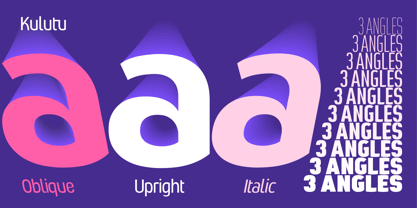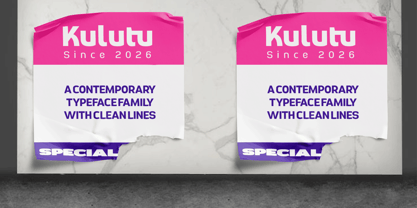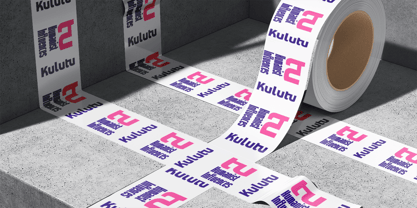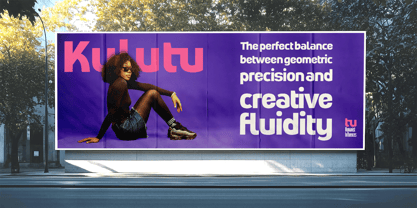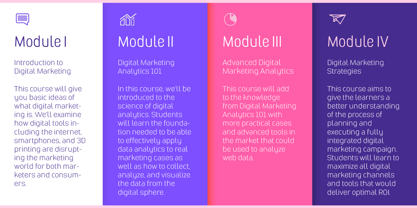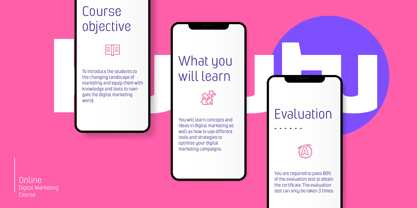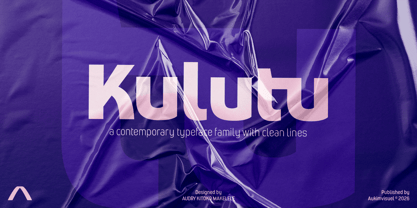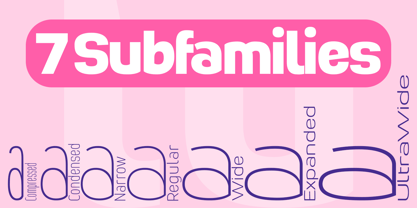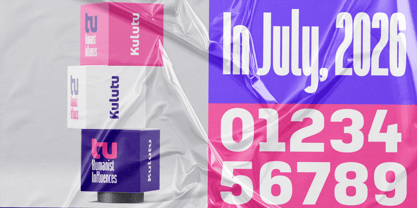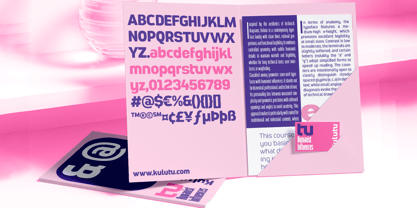
Kulutu
The Kulutu Font Family was designed by Audry Makelele and published by AukimVisuel. Kulutu contains 118 styles. More about this family
Inspired by the aesthetics of technical diagrams, Kulutu is a contemporary typeface family characterized by clean lines, rational proportions, and functional legibility. This typeface artfully combines controlled geometry with subtle humanist details, ensuring warmth and readability across various applications, including long technical texts, user interfaces, and wayfinding. Classified as a geometric sans-serif with humanist influences, Kulutu stands out for its neutral, professional, and technical tone. Its personality strikes a balance between measured simplicity and geometric precision, featuring softened openings and angles that prevent austerity. This design approach makes it particularly suitable for institutional and industrial contexts, where clarity is of utmost importance. In terms of anatomy, Kulutu boasts a medium-high x-height, enhancing legibility even at smaller sizes. The contrast is low to moderate, with slightly softened terminals, while certain letters, notably the “a” and “g,” adopt simplified forms to facilitate faster reading. The counters are intentionally open, allowing for clear differentiation of closely spaced glyphs (e, c, o) in dense text, while small angles on the diagonals evoke the precision of technical drawing lines. The family is structured for great flexibility, offering seven subfamilies ranging from Compressed to UltraWide, and thirteen weights from Thin to Extra Black. In total, the typeface encompasses 298 glyphs, focusing on simple Latin characters, making it ideal for technical and documentary uses where readability and visual consistency are crucial. OpenType features include contextual ligatures, small caps, discretionary ligatures, and fractions, all of which enhance technical typesetting and precision typography. Kerning and spacing have been meticulously refined according to two sets of optical and metric guidelines, optimized for both user interfaces (UI) and print, ensuring smooth readability across various mediums. In practice, Kulutu excels in technical manuals, industrial interfaces, signage, and scientific reports. To maintain optimal hierarchy and clarity, it is recommended to use light weights for captions, medium weights for body text, and bold weights for headings and numbering.